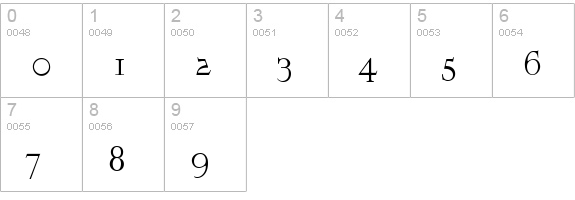
Democratica Regular Oldstyle font is a classic and elegant typeface that exudes sophistication and charm. With its timeless design and clean lines, this font is perfect for a wide range of projects, from formal invitations to professional documents. Its balanced proportions and traditional serifs make it easy to read and perfect for conveying a sense of tradition and authority. What makes Democratica Regular Oldstyle font even more appealing is that it is available for free download at FontsMarket.com. This means that you can easily access this beautiful font and use it in your projects without any cost. Whether you are a designer looking for a versatile typeface or a business professional in need of a reliable font for your communications, Democratica Regular Oldstyle font is sure to meet your needs. Download it today and add a touch of sophistication to your designs.